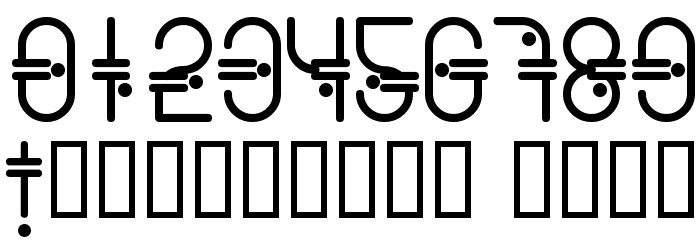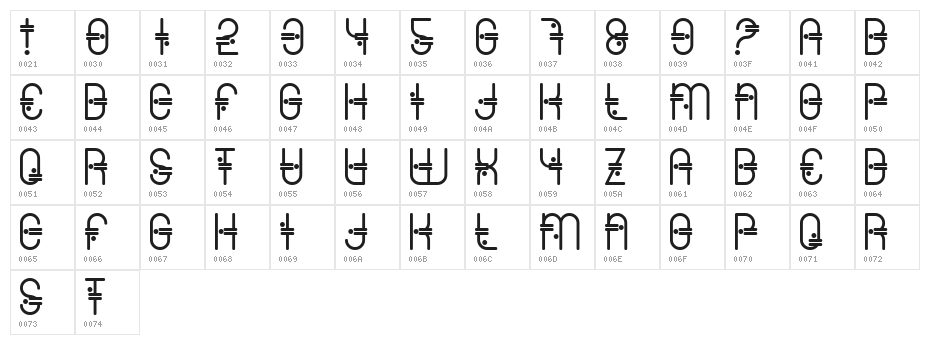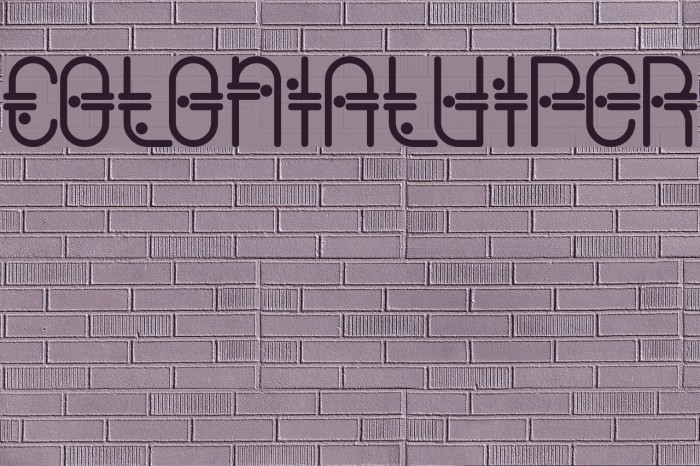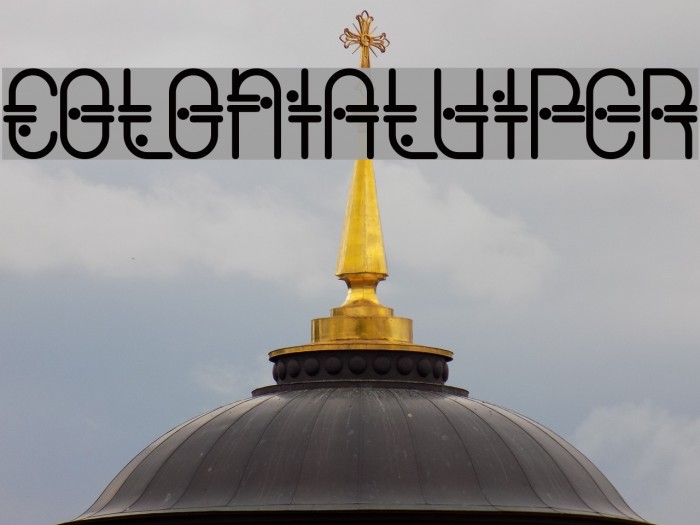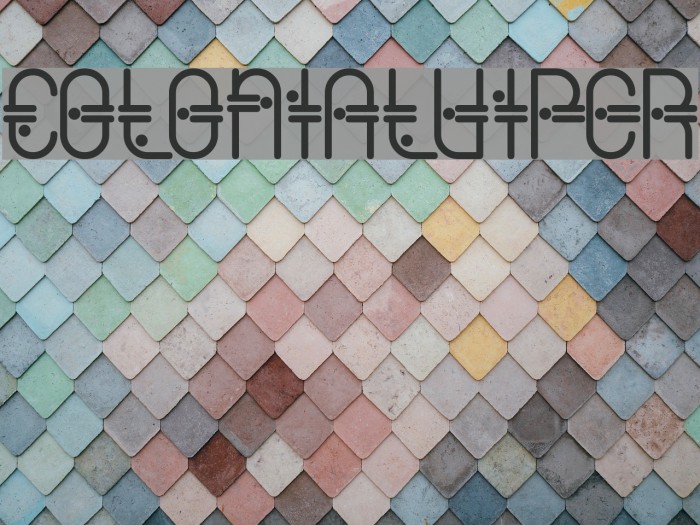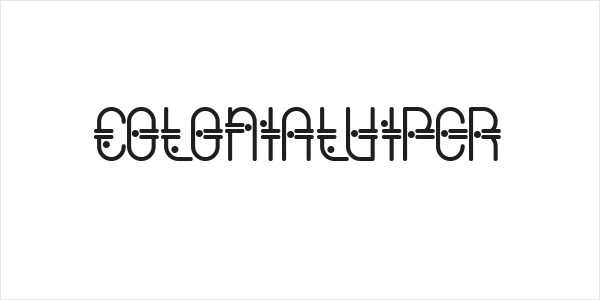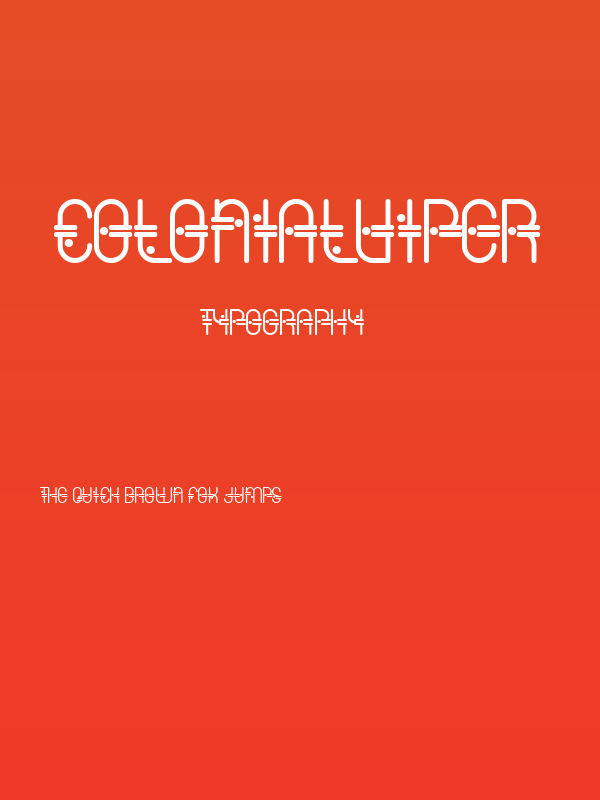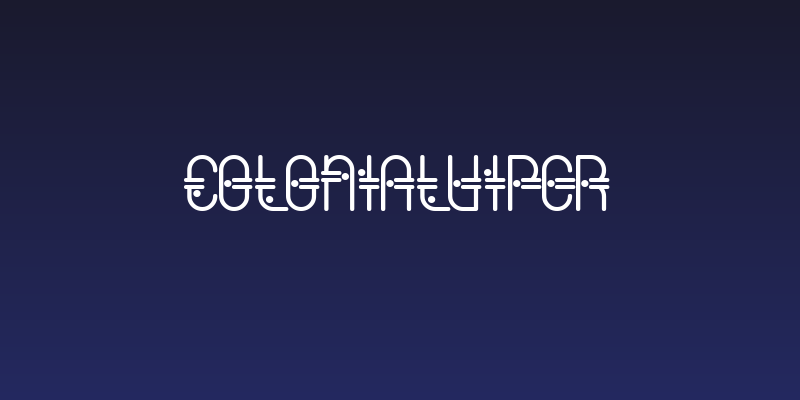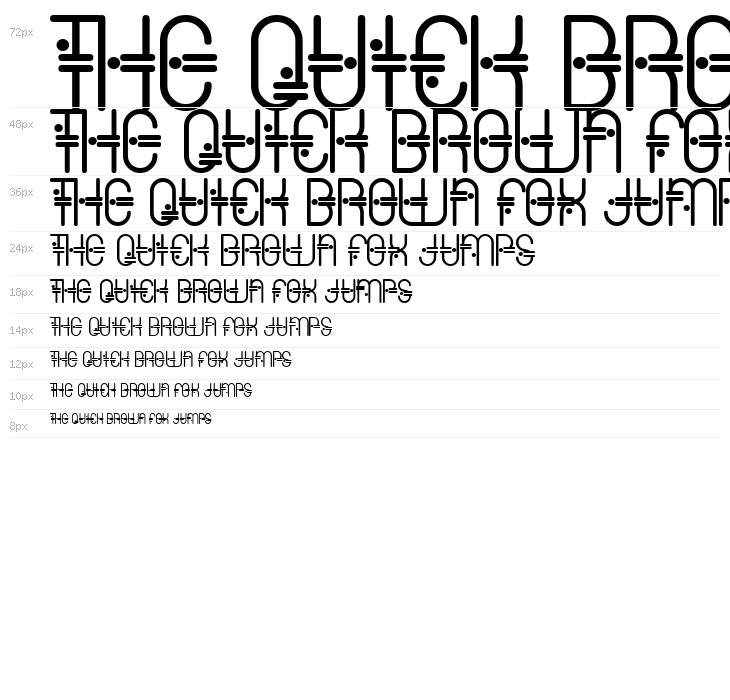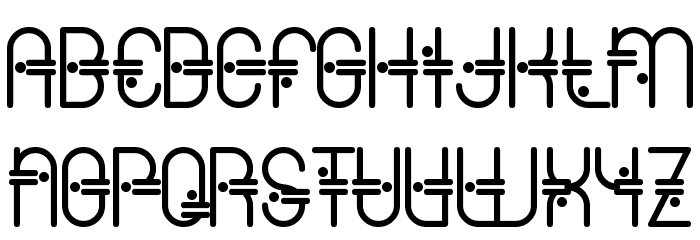
ColonialViper Font
This font features a futuristic and geometric design, characterized by its unique use of lines and dots to create each letterform. The characters are constructed with a consistent stroke width, giving it a monolinear appearance. The design incorporates circular elements and horizontal lines that intersect the vertical strokes, adding a distinct, almost digital aesthetic. The uppercase and lowercase letters share similar structural elements, maintaining a cohesive look throughout the typeface. Numbers and special characters follow the same design principles, ensuring uniformity across all glyphs. This font's style is both modern and innovative, making it suitable for projects that require a contemporary and tech-inspired look.
Proposed ProjectsIdeal for sci-fi themed designs, tech branding, video game interfaces, and modern posters.